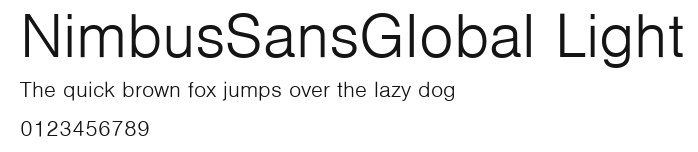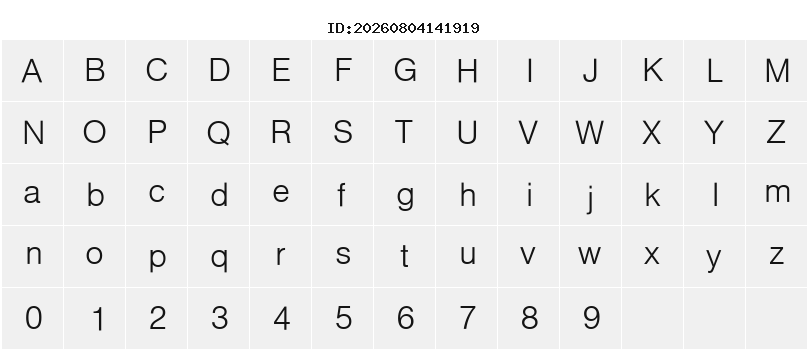
About NimbusSansGlobal Light.ttf
NimbusSansGlobal Light.ttf is a modern, elegant sans-serif font designed for ultimate readability and visual harmony. Perfect for branding, headlines, web design, and print materials.